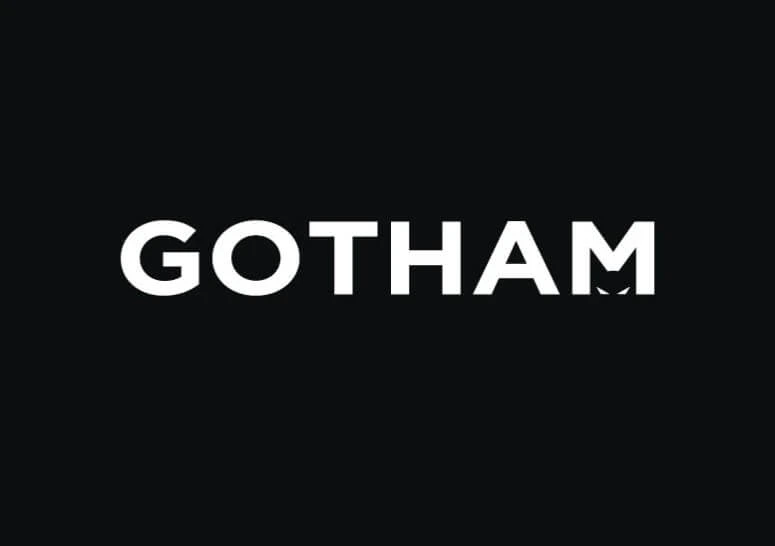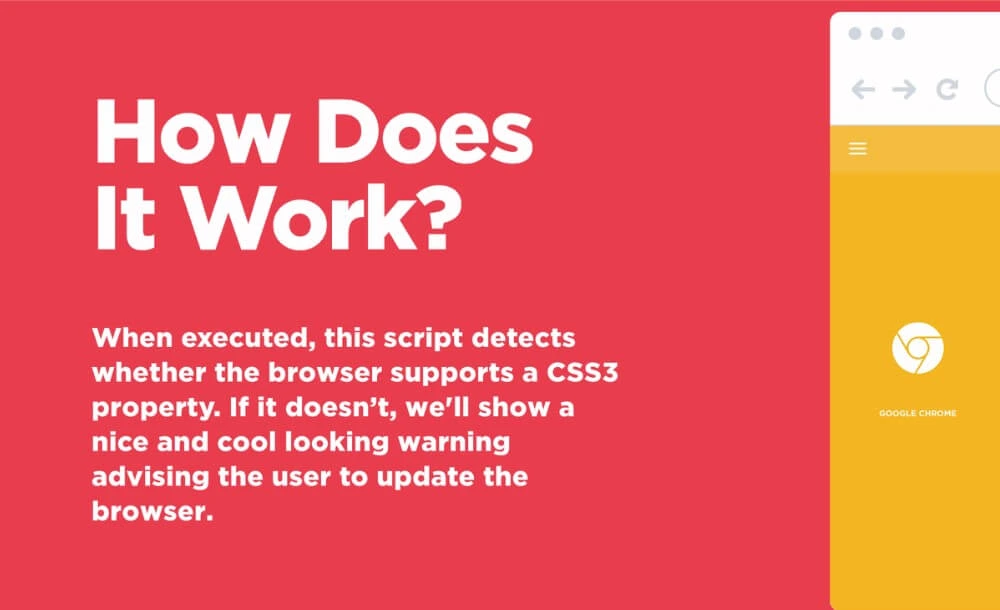
If you are looking for one of the most famous font on the web then you have just landed on the right page. As here we have shared the Gotham font, which is the most popular font on the web and every designer out there just love this font.
Gotham font was designed by a professional American designer tobias frere jones in 2000 and after its release. It got the attraction of many designers from around the world.
As we all know that gotham font were used in many Comapings especially in Obama’s hope campaign. After that Gotham font has touched its peak and since then everyone is mad to use this font in their designs.
Gotham Font
You can take a look on the design of gotham black font then you will be able to see that it has very different variations like a person who wants to use a rounded font can easily use this font. There is a font called univers font that can also fulfill your needs or if someone wants to use a light or ultra font can also use it in their design and even make them more advanced and clean than ever before.
The Creativity of Gotham Font in Graphic Designs
Every font can make your graphics more creative but no one can beat the uniqueness of this font as there many alternatives to this font but it has its own class.
Gotham Font
This is a second font that is going to fulfill your requirements. One of the biggest reason of using this font is to create a stylish and responsive web design. If you are a web designer and would love to design WordPress themes and templates then a font like avenir font can be an ideal choice for your web design project.
There were also many other popular fonts but these are the top alternatives of it that can be used instead of this font.
Gotham Book Font
If you are an older graphic designer or web designer and already know about many fonts then you might also know that gotham book font also has its own name in the industry.
There are was other families of this font but these were the only one that took overall and got very popular around the world. Now, most of the designers use these font families in their designs.
Along with it, Gotham rounded font also very popular and can be used in different web designs. If you are also looking for something unique then you can try using this font as it comes with many advanced features.
You can preview its design by simply looking at below sample image in which you can see how your design will look like when you apply this professional and awesome font on your designs.
Gotham Font
Design of Gotham Font Family
One of the most important thing that you always need to consider is font design. Because if the design of a font is not that good then you can’t be able to give a unique look to your work. You can read a detailed case study on this font and see how this font has changed the concept of the typography world.
There are many other examples available that we can list here but we think that if you download Gotham font free and then use it in your different graphic designing projects, you will have a clear idea of its uniqueness as well as it helps you to get more attention from your clients because it’s not like any normal typeface like FF din font, however it was a great invention in the font industry.
Gotham Font
You can go ahead and can check this beautiful and stylish font. As it’s one of the beautiful font like supreme font out there and different web designers would like to use it in their design projects. So we don’t think so you want to miss that font as well, because it can also be considered an alternative font.
What Font Is Gotham Similar To?
By having a look on the design and creativity of this font. The only font that is similar to gotham font is Montserrat font.
Is Gotham a Web Font?
Yes! Gotham is a web font that can be used for designing graphics.